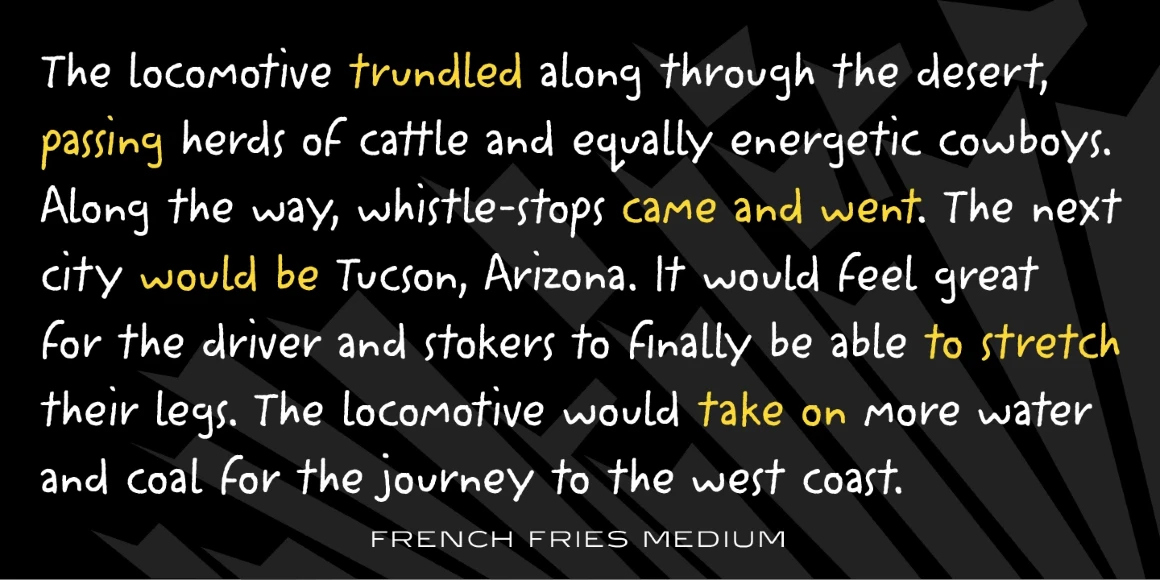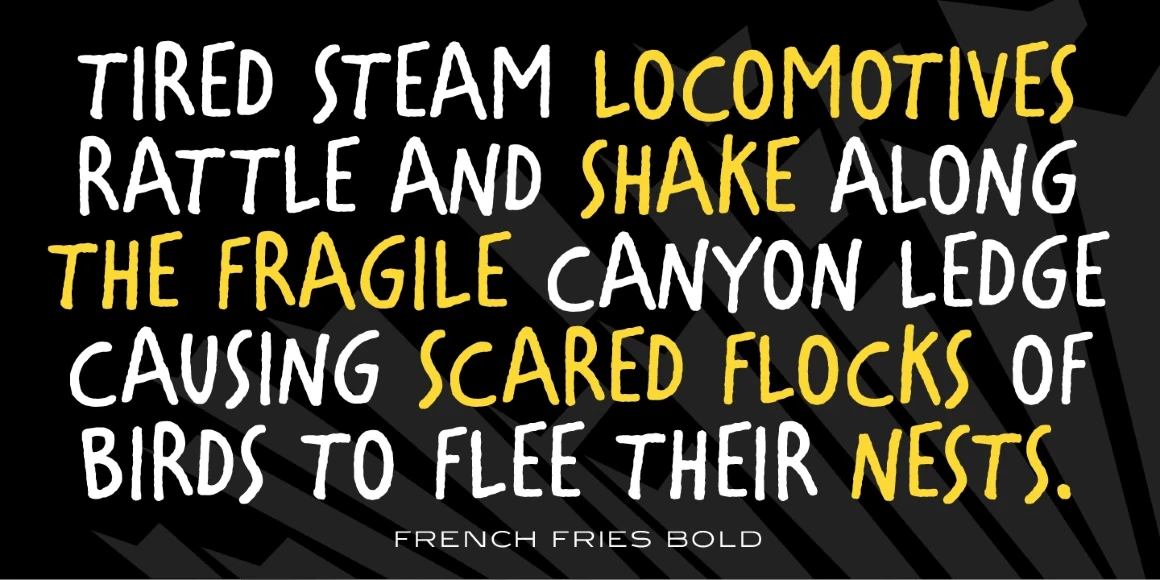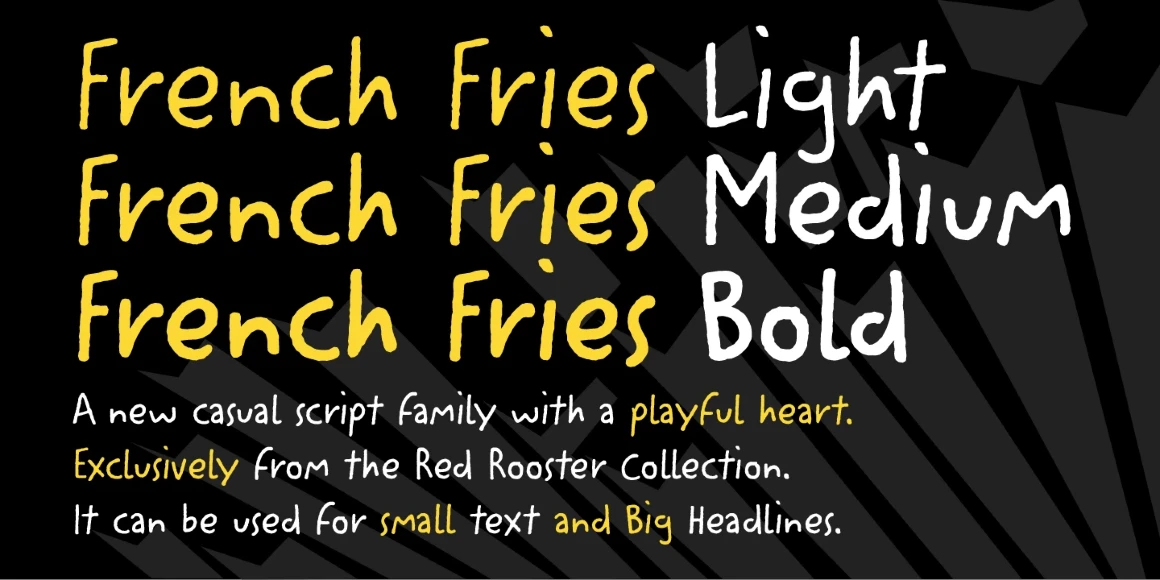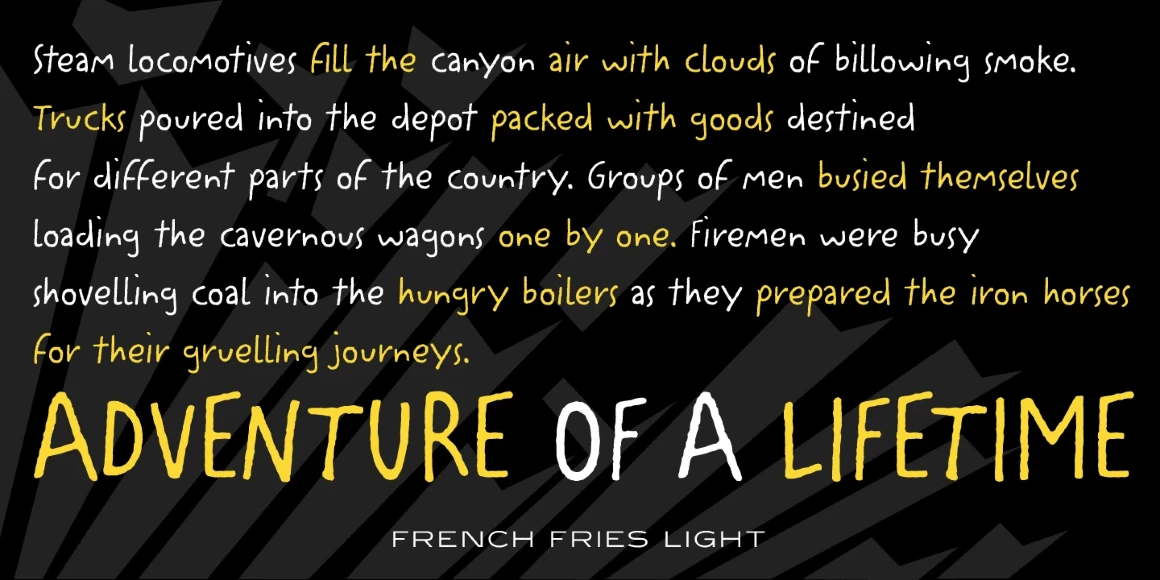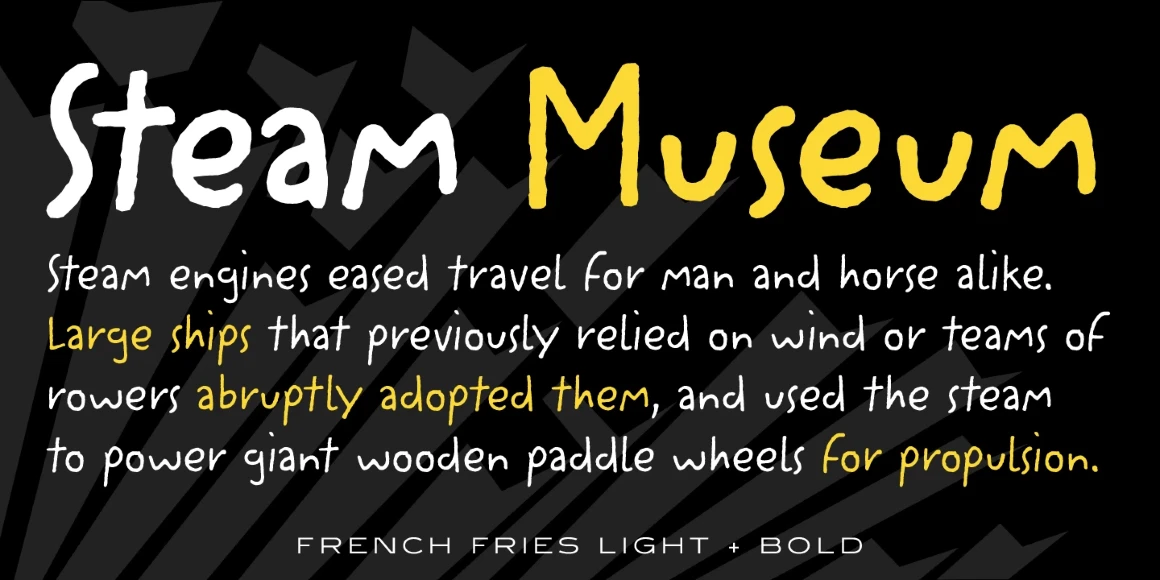
French Fries
French Fries Light
French Fries Medium
French Fries Bold
French Fries is a three-weight casual script font family. It was created and produced by Steve Jackaman (ITF) in 2017. French Fries has a casual, lighthearted, playful, hand-lettered look, and is food for the eyes at any size. The family is surprisingly versatile, and might be right at home on menus, packaging, and early education materials.